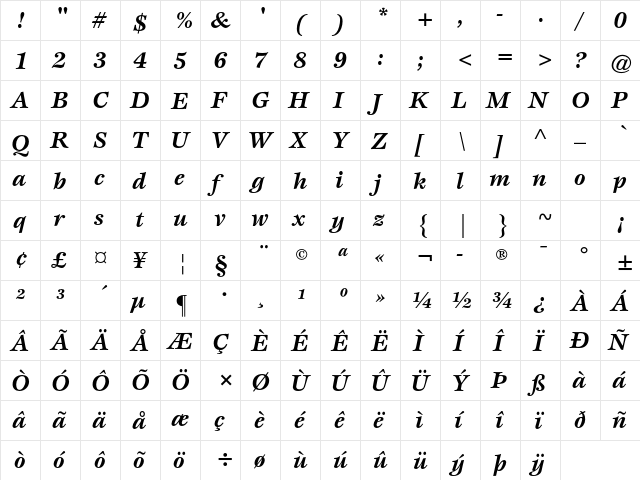
ITC Esprit Std Bold Italic Font Preview
| Designer | Jovica Veljovic |
Design Context for ITC Esprit Std Typeface
ITC Esprit Std takes a measured approach to typography — its balanced proportions and neutral character make it a reliable workhorse for both digital and print work. The slanted form adds forward momentum and visual energy. The heavy weight commands attention and anchors typographic hierarchies.
Pro Tip: Try ITC Esprit Std for annotation and caption copy alongside an upright companion — the contrast in angle creates a dynamic but ordered typographic system.